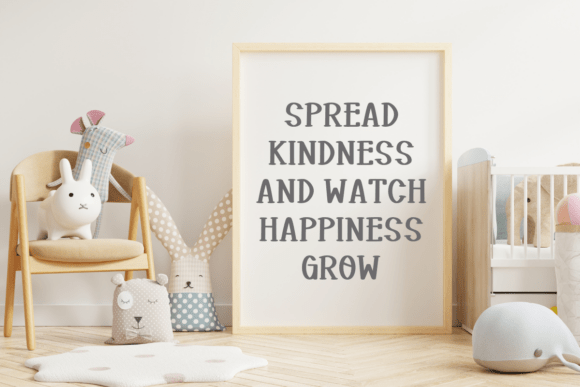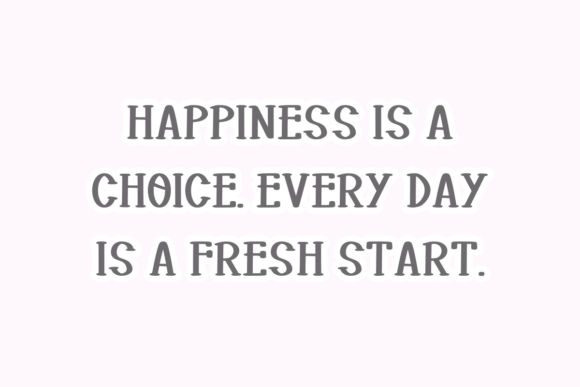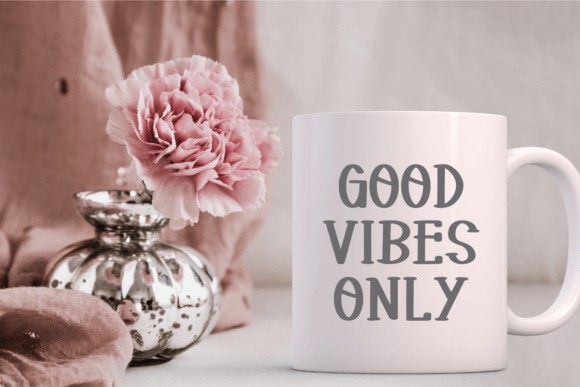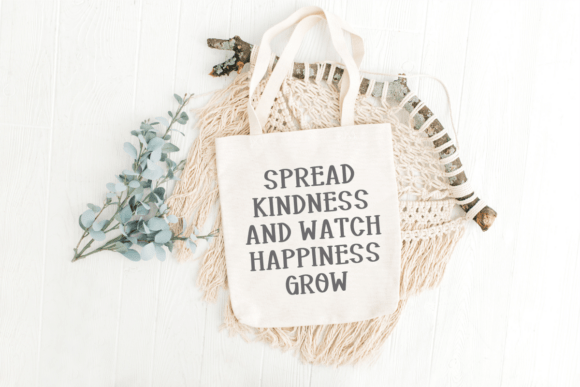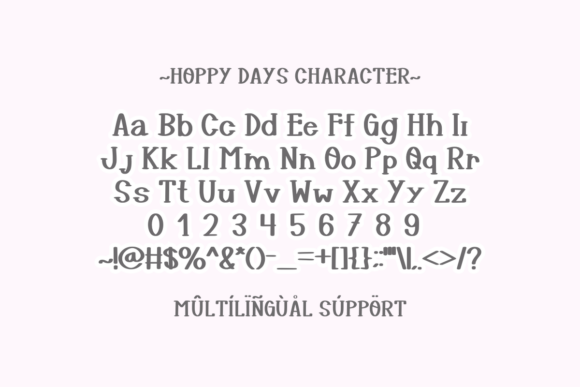
Introduction to Hoppy Days Font
As a crafter, there’s nothing quite like the thrill of creating something from scratch. Remember the first time you designed a custom sticker or made a handmade card for a loved one? The feeling of satisfaction and joy is unmatched. But let’s be real – finding the right design resource can make all the difference in bringing your creative project to life. That’s where the Hoppy Days Font comes in – a playful handwritten font that’s perfect for adding a personal touch to your crafts, planners, and more.
With its cute and friendly style, the Hoppy Days Font is ideal for a wide range of creative endeavors, from Cricut projects to sublimation and DIY crafts. And the best part? It’s available for free download, making it an incredibly valuable resource for designers and makers alike.
Key Features of Hoppy Days Font
- High-quality design for creative projects and personal use, including invitations, posters, and more.
- Unique, playful design that adds a touch of whimsy to any creative project.
Honest Review: Hoppy Days Font
I recently had the chance to work with the Hoppy Days Font, and I’m excited to share my honest thoughts on this design resource. As a designer, I’m always on the lookout for high-quality fonts that can elevate my creative projects.
One of the things that stood out to me about the Hoppy Days Font is its transparent background, which makes it incredibly versatile for use in various design contexts. ✨ I love how easy it is to use and customize, making it a great addition to any design toolkit.
Here are some of the key features that I appreciated:
- High-quality design that looks great on a variety of backgrounds
- Easy to customize and use in creative projects
Of course, no font is perfect, and I did encounter a few limitations. ⚠️ The font can be a bit glitchy at times, and I’ve experienced some issues with font rendering on certain devices. However, these issues were relatively minor and didn’t detract from my overall experience.
Overall, I was impressed with the Hoppy Days Font and would definitely recommend it to fellow designers. Its high-quality design, transparent background, and ease of use make it a valuable addition to any design resource collection.
The Hoppy Days Font is ideal for designs related to beer, brewery, or outdoor events. You can also use it for food, travel, or lifestyle projects that require a playful and modern touch.
To get the most out of the Hoppy Days Font, experiment with different font sizes and colors to create a visually appealing design. You can also pair it with other fonts for a unique look.